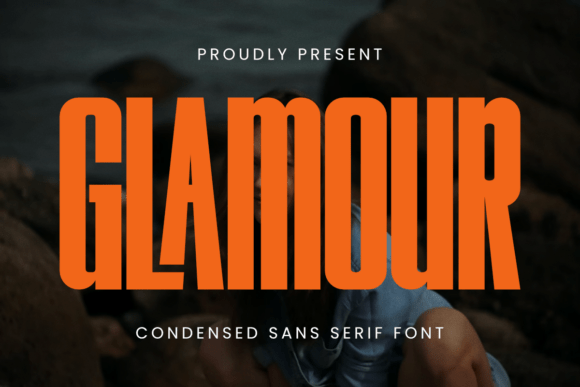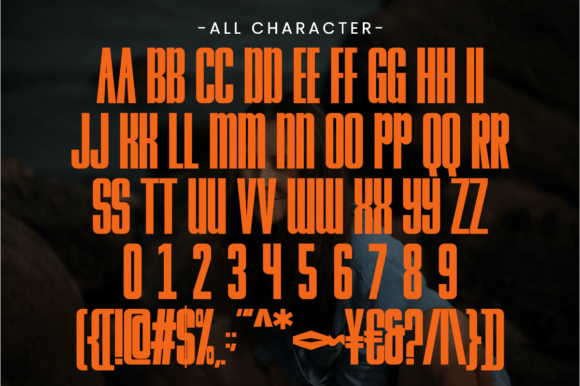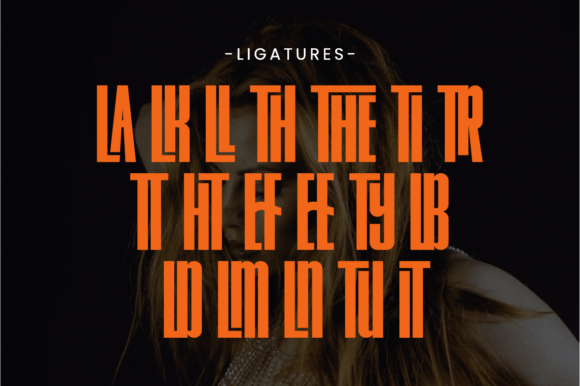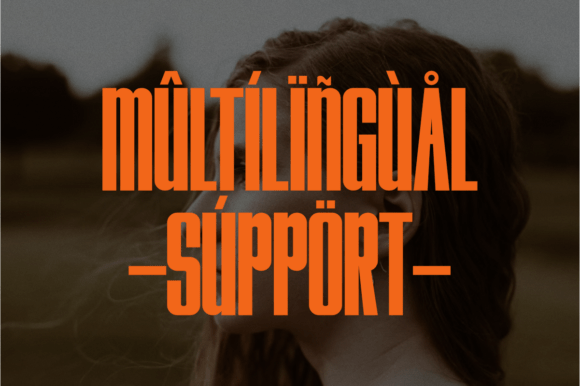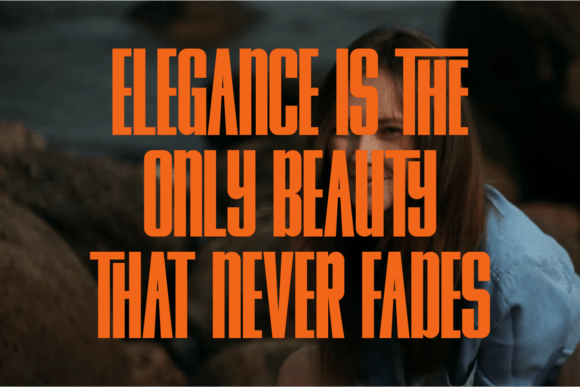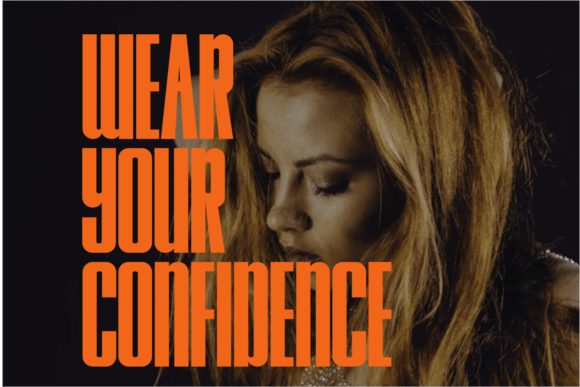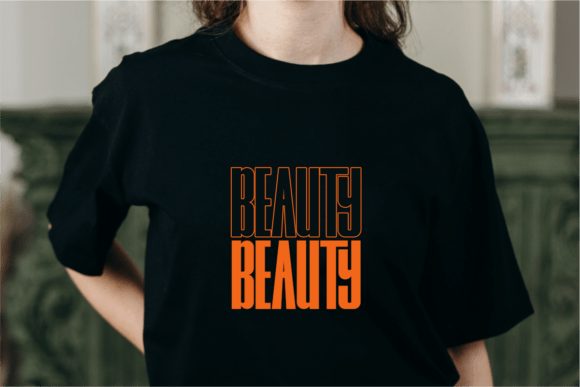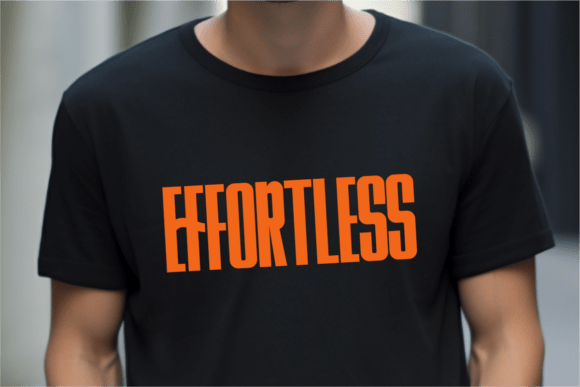
Glamour Font
Glamour is a bold condensed sans serif font with a modern and stylish appearance. Its tall, narrow letterforms give a sleek, contemporary look that works perfectly for fashion branding, magazine headlines, logos, posters, packaging, and social media graphics. Designed to make a statement, Glamour combines elegance with strength, making it an excellent choice for projects that need a powerful and glamorous touch.